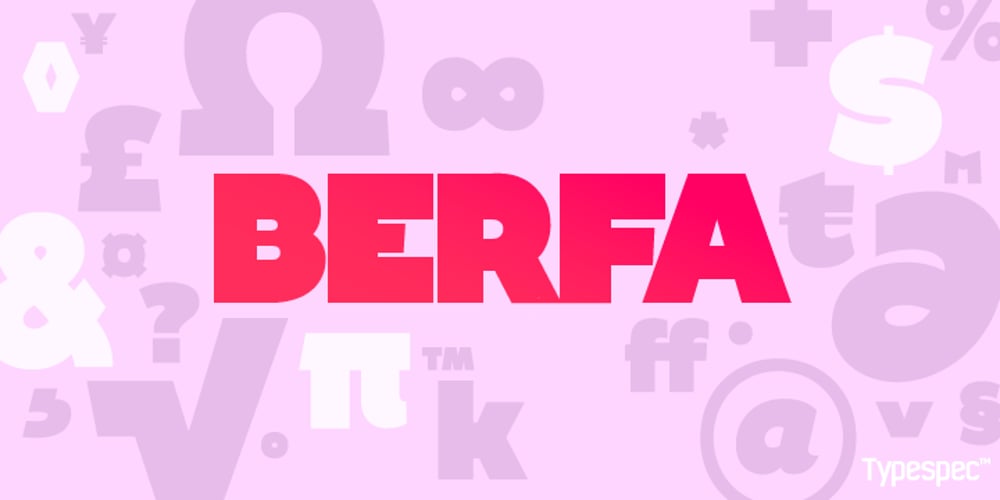
Berfa Font Family was designed by Robert Wilson and published by Typespec. Berfa contains 1 styles and family package options. Berfa is an ultra-black display sans with a grounded temperament and a warm heart. Stern but fair, she’s remarkably agile for her size, ideal for any occasion calling for weighty headlines and a strong character. Berfa also has a quirkier side, sometimes swapping her conventional forms for eccentric alternatives, upon polite request of course. Berfa comes in OpenType (.otf) format for Mac and Windows. Features: Berfa supports the following OpenType features: Standard ligatures, discretionary ligatures, ordinals, custom fractions, numerators, denominators, superscript, scientific inferiors, proportional and tabular lining figures, and a slashed zero. There are also two stylistic sets containing alternate glyphs. Language Support: Each weight has a 528 glyph character set for use in the following Latin languages: Albanian, Afrikaans, Basque, Bosnian, Breton, Catalan, Croatian, Czech, Danish, Dutch, English, Esperanto, Estonian, Faroese, Finnish, French, Gaelic, German, Greenlandic, Hungarian, Icelandic, Indonesian, Irish, Italian, Latvian, Lithuanian, Luxembourgish, Maltese, Norwegian, Occitan, Polish, Portuguese, Romanian, Sami, Serbian (Latin), Slovak, Slovene, Sorbian, Spanish, Swedish, Swahili, Turkish, Walloon and Welsh.